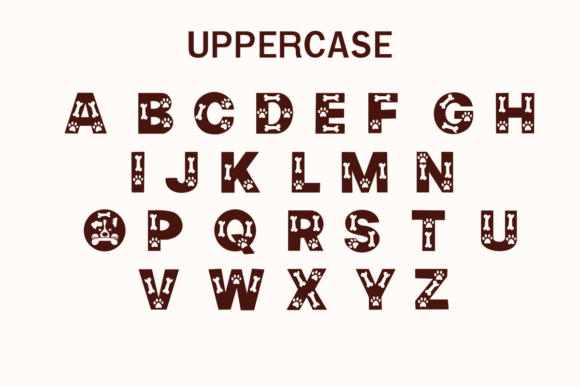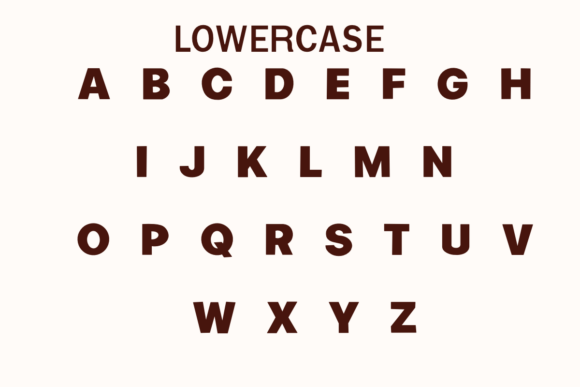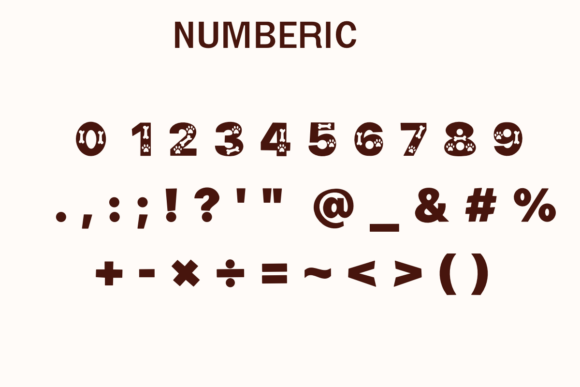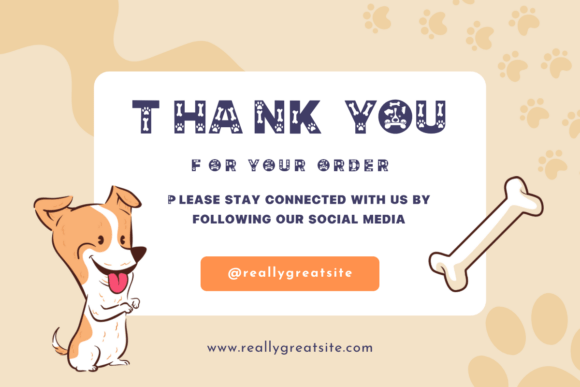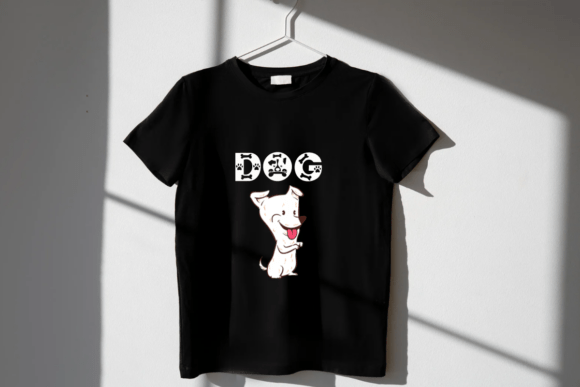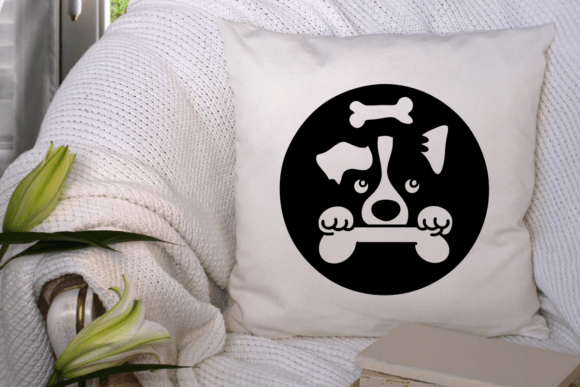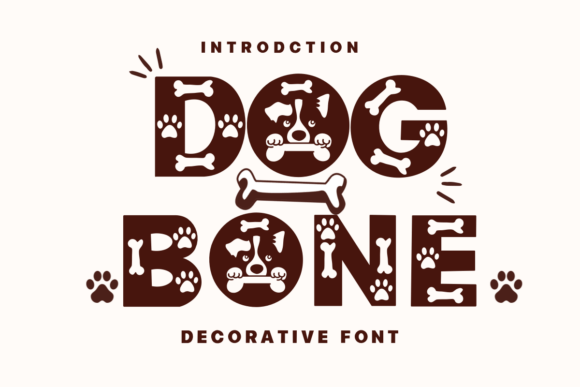
Unleash Your Creativity with Dog Bone Font: A Decorative Delight
Are you a designer, crafter, or DIY enthusiast looking for a unique and playful font to add a personal touch to your projects? Look no further than the Dog Bone font! This decorative font is perfect for taking notes, writing a diary, or creating greeting cards, but its versatility doesn’t stop there. With Dog Bone, you can add a fun and whimsical touch to a wide range of designs, from banners and social media posts to mugs, shirts, and more!
What is Dog Bone Font?
Dog Bone font is a decorative typeface that features bold, playful, and eye-catching lettering. Its unique design is reminiscent of dog bones, hence the name. The font is carefully crafted to be both fun and legible, making it perfect for a variety of creative projects. Whether you’re a seasoned designer or a crafting novice, Dog Bone font is sure to bring a smile to your face and inspire your creativity.
Uses for Dog Bone Font
So, what can you do with Dog Bone font? The possibilities are endless! Here are some ideas to get you started:
- Note-taking and journaling: Add a playful touch to your notes and diary entries with Dog Bone font. It’s a great way to make writing more fun and engaging.
- Greeting cards and invitations: Create one-of-a-kind greeting cards, invitations, and party decorations with Dog Bone font. It’s perfect for birthdays, holidays, and special occasions.
- Banners and signs: Use Dog Bone font to create eye-catching banners and signs for parties, events, or DIY projects.
- Social media posts: Add a touch of personality to your social media posts with Dog Bone font. It’s a great way to stand out and make your content more engaging.
- Mugs, shirts, and more: Use Dog Bone font to create custom mugs, shirts, tote bags, and other personalized items.
- Stationery and crafts: Add Dog Bone font to your stationery, scrapbooking, and other craft projects for a fun and playful touch.
Why Choose Dog Bone Font?
So, why should you choose Dog Bone font for your projects? Here are just a few reasons:
- Unique and playful design: Dog Bone font features a one-of-a-kind design that’s sure to add a touch of personality to your projects.
- Easy to read: Despite its playful design, Dog Bone font is carefully crafted to be easy to read, making it perfect for a wide range of applications.
- Versatile: Dog Bone font can be used for a wide range of projects, from notes and greeting cards to banners and social media posts.
- Fun and engaging: Dog Bone font is sure to bring a smile to your face and inspire your creativity. It’s the perfect way to add a touch of whimsy to your projects.
Tips for Using Dog Bone Font
Here are a few tips for getting the most out of Dog Bone font:
- Experiment with colors: Dog Bone font looks great in a variety of colors, so don’t be afraid to experiment and find the perfect hue for your project.
- Mix and match: Combine Dog Bone font with other fonts and design elements to create a unique and eye-catching look.
- Keep it simple: Don’t be afraid to keep things simple and use Dog Bone font on its own. Its playful design is sure to shine through.
Dog Bone font is a decorative delight that’s sure to add a touch of personality to your projects. With its unique and playful design, ease of use, and versatility, it’s the perfect choice for designers, crafters, and DIY enthusiasts of all levels. So why not give Dog Bone font a try and see what creative possibilities unfold?